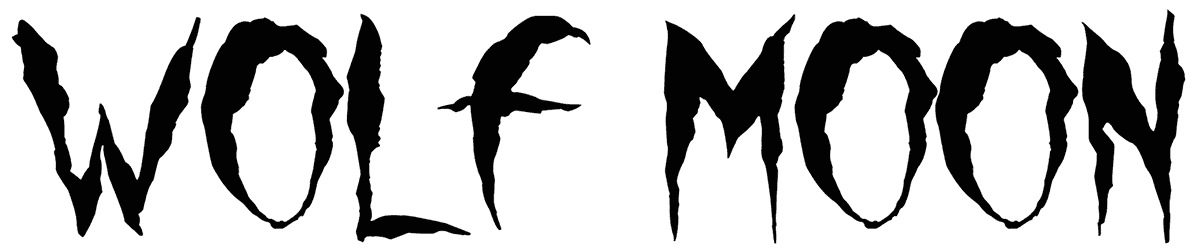
Wolf Moon Font
Do you want to have words with a scary scratch mood? Hang in there because Wolf Moon will give it to you. This horror font with its unique hand-drawn face would be a distinct show for your haunting designs. Even without lowercase letters, this fancy font would be a cool choice for various layouts, namely movie posters, games, comics, and so forth.